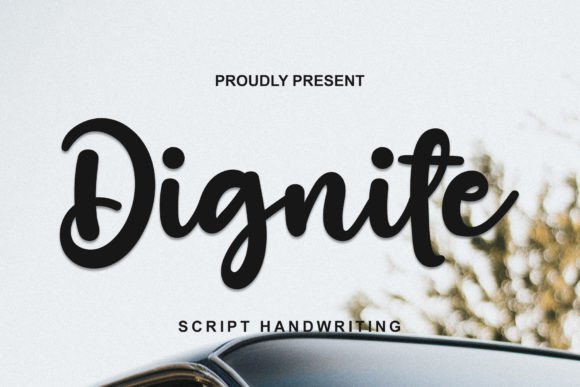
Unleash Your Creativity with Dignite Font
You know that moment when the perfect font clicks, and your design comes to life? It’s a rush of excitement, a spark of inspiration, and a dash of creative freedom. For designers, finding the right font can be a game-changer, and today, we’re excited to introduce you to a modern and friendly handwritten font that’s about to become your new best friend: Dignite Font.
Dignite Font is a beautifully crafted, highly detailed font that’s designed to elevate any creation. Whether you’re working on a blog post, a social media campaign, or a branding project, this font has the potential to add a touch of warmth and personality to your work. With its unique, handwritten feel, Dignite Font is a valuable asset for designers looking to add some flair to their designs.
Dignite Font Key Features
- Font Family: Dignite Font comes in 4 font styles – Regular, Italic, Bold, and Bold Italic.
- Resolution: Optimized for use at high resolutions (up to 300 DPI) for clear and crisp typography.
- Font Size: Available in various font sizes, ranging from 8pt to 72pt, making it suitable for a wide range of applications.
- Unique Characteristics: Dignite Font features a clean, modern design with subtle flair, making it ideal for use in corporate branding, advertising, and editorial content.
Dignite Font Review
Overall, I found Dignite to be a decent font, but it has its pros and cons. Here’s what I think.
- Unique aesthetic: Dignite has a distinctive look that’s sure to grab attention.
- Good for headings: The font is particularly well-suited for use as headings or titles.
- Wide language support: Dignite supports a wide range of languages, making it a good choice for international projects.
- Limited legibility: In smaller sizes or at certain viewing distances, Dignite can be hard to read.
- Not suitable for body text: While the font is great for headings, it’s not ideal for large blocks of body text.
- Some character spacing issues: In certain combinations, the font can look a bit cramped or uneven.
While Dignite has its strengths, it’s not a font I’d recommend for everyday use. Its unique aesthetic and wide language support make it a good choice for specific projects, but its limitations hold it back from being a go-to font. If you’re looking for a font to add some flair to your design, Dignite might be worth considering. However, for more general use, I’d suggest exploring other options.
For best results, use Dignite Font in headings and titles to create a clean and modern look.
For best results, use Dignite Font in combination with other modern fonts to create a cohesive and professional look.
For best results, use Dignite Font in headings and titles to create a clean and modern look.
Dignite Font is ideal for:
- Business cards and resumes
Comparison to Dignite Font: Open Sans is more rounded and has a softer look compared to Dignite Font. It’s also more legible at small font sizes and has a more extensive character set.
Lato is a sans-serif font designed by Łukasz Dziedzic. It’s a great alternative to Dignite Font for body text and headings in digital products. Lato has a clean and modern look, making it perfect for web and mobile applications.
Q: What is the recommended font size for optimal readability with Dignite Font?
The recommended font size for optimal readability with Dignite Font is between 12-14 points. However, this may vary depending on the specific design application, screen resolution, and intended audience. It’s essential to test the font at different sizes to ensure the best results.